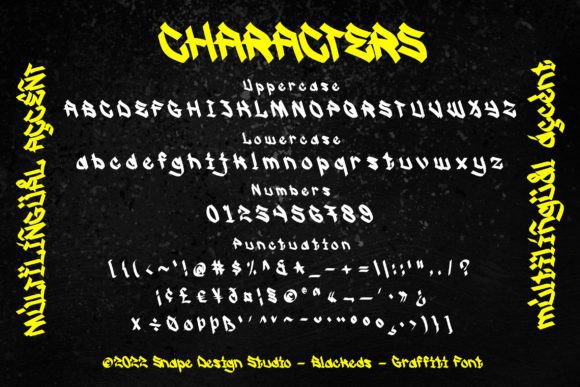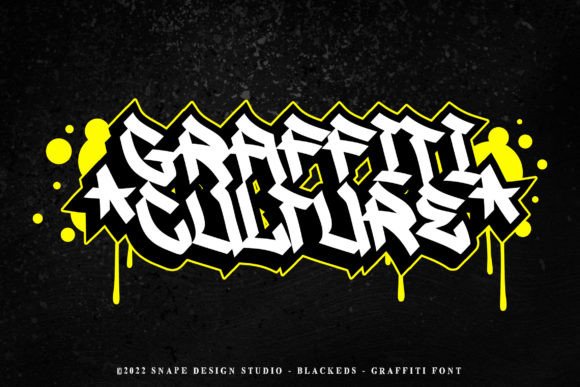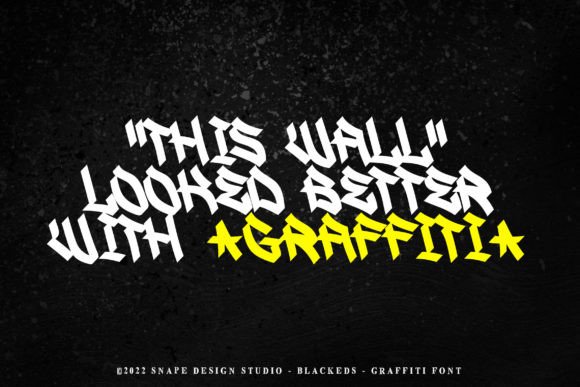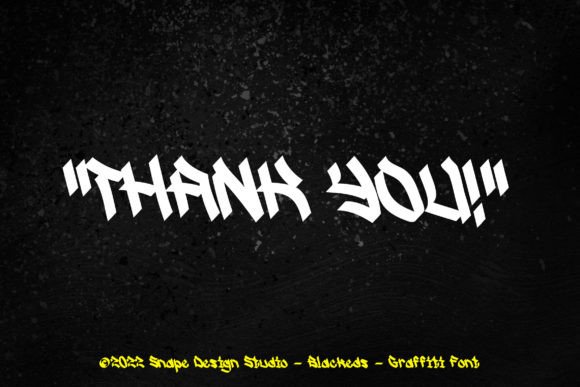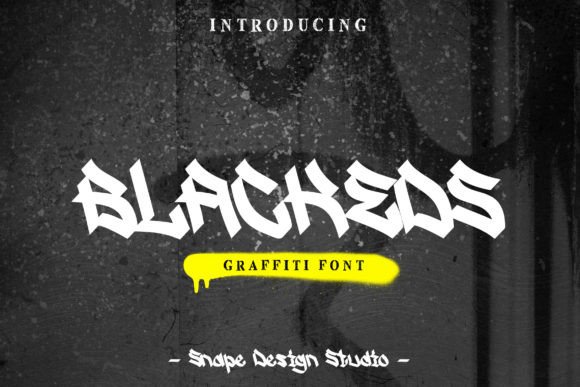
The Ultimate Guide to Blackeds Font: Unleashing Urban Style in Your Designs
Blackeds is a cool and trendy display font inspired by typical street art calligraphy. Its urban, hip, graffiti-style characters are perfect for adding an authentic touch to each of your projects. In this article, I’ll share my honest review of Blackeds Font, provide a practical guide on how to use it, and explore similar fonts that might tickle your fancy.
- ✨ Unique and authentic street art vibe that’s perfect for urban-themed projects
- ✅ Highly legible and versatile, making it suitable for a wide range of design applications
- ⚡️ Easy to pair with other fonts, thanks to its bold and eye-catching style
While Blackeds Font is an amazing addition to any design project, there are a few things to keep in mind: 🤔
- ⚠️ Limited use in body text, as it’s primarily designed for display purposes
- ⚠️ Might not be the best choice for projects requiring a high level of formality
Blackeds Font was created by a team of designers who wanted to capture the essence of street art and urban culture. Inspired by the graffiti tags and murals that adorn city walls, they crafted a font that’s both authentic and stylish. The result is a font that’s perfect for designers, crafters, and creative hobbyists looking to add a touch of urban flair to their projects.
Q: Is Blackeds Font suitable for body text?
A: While Blackeds Font is highly legible, it’s primarily designed for display purposes. For body text, you might want to consider a more traditional font.